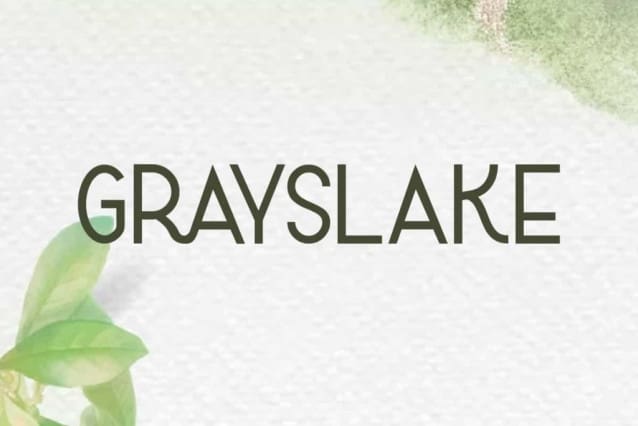
Grayslake Font
Grayslake Font is a stylish modern ligatured sans serif display font designed by VinType Studio. This font has an attractive style to enhance your design to make it standout. It will suits many designs, such as apps, brochure, custom design, gift box, invitation, label, poster, product packaging, quote, signage, stationery, website, and more!
Grayslake Font includes full set of Uppercase and Lowercase Basic Characters, Numerals, Punctuation, and Ligature. This font can paired with other type fonts and will be suitable for many industries, such as accessories, advertising, beauty product, event or festival, fashion, furniture, photography, resort, restaurant, skincare, etc.